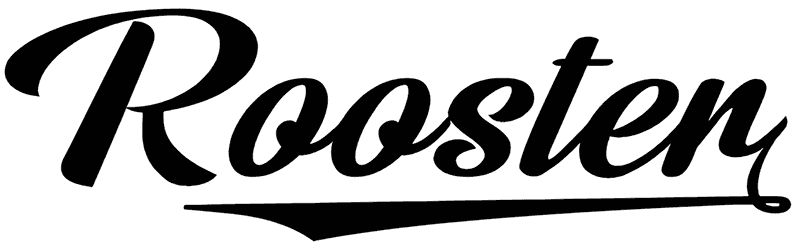
Rooster Font
If you are searching for a vintage and popular face to adorn your intended design, this item can be attractive for you. As a baseball font, Rooster has beautiful manuscript lettering and a matchable mood. Although Rooster doesn’t offer numbers and most punctuation marks, it would be enough in promoting your projects, for instance, posters, titles, logos, covers, or the like.